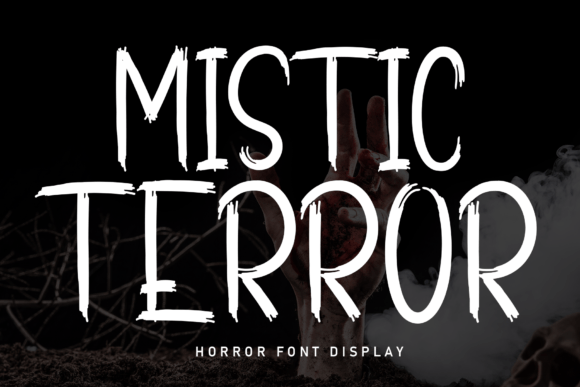
Step into a realm of chilling beauty with Mistic Terror, a display font that will haunt your designs with its captivatingly eerie charm. Specially crafted by the visionary artist william jhordy, this font family embodies the essence of horror, boasting a minimal effect of expressive brushstrokes and bone-like letters that drip with the essence of blood, creating an atmosphere of spine-tingling suspense.
Mistic Terror is not just a font; it's an experience that will send shivers down your spine and leave your audience spellbound. Its eerie elegance makes it the perfect choice for invitations, postcards, posters, and headings that demand attention. Picture your Halloween event promotions dripping with the chilling essence of Mistic Terror, its bone-chilling aesthetic sending shivers down the spines of those who dare to look.
This remarkable font is a versatile chameleon, adapting seamlessly to a variety of design settings. Its haunting beauty will add an unforgettable touch to your book covers, conjuring up tales of dark fantasy and otherworldly horror. Unleash the power of Mistic Terror in your branding designs, crafting logos and emblems that evoke an aura of mystery and intrigue.
With Mistic Terror, you hold the key to unlocking a world of typographic nightmares. Its haunting charm will captivate your audience, leaving them spellbound by its spine-tingling beauty. Embrace the darkness, let your creativity run wild, and experience the chilling magic that awaits you within the depths of Mistic Terror.